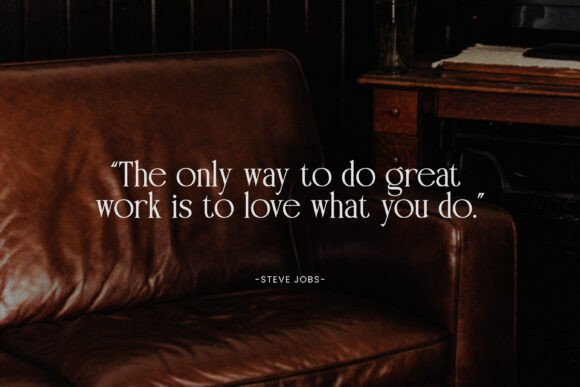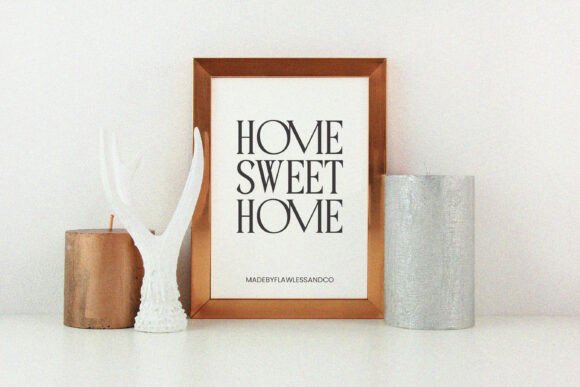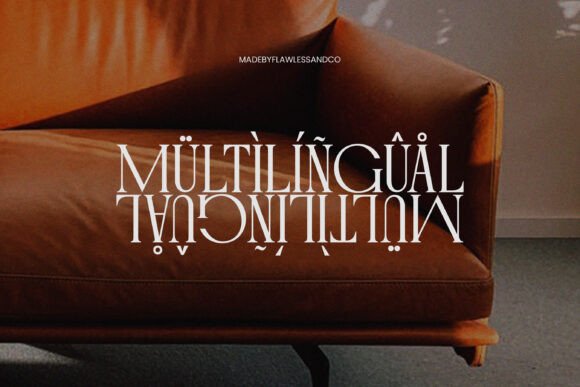
Introducing Grand Watcher: The Elegant Serif Font for Discerning Designers
I’ll never forget the time I was working on a wedding stationery project, and my client asked me to create a custom font to match their elegant brand. I spent hours scouring the internet for the perfect font, but nothing seemed quite right. That’s when I stumbled upon Grand Watcher, a refined serif font that combines timeless elegance with modern design. In this article, I’ll share my experience with Grand Watcher, its features, and how to make the most of it in your designs.
A Personal Review of Grand Watcher
- ✨ Sleek letterforms that exude sophistication
- ✅ Beautifully crafted ligatures that add a touch of elegance
- ⚡️ Perfect for adding a touch of refinement to branding materials, wedding stationery, product packaging, and more
- 🌈 Highly versatile and works well in a variety of design contexts
While Grand Watcher is an exceptional font, there are a few minor quirks to be aware of:
- 🤔 Some users may find the font’s serifs a bit too subtle for certain design applications
- ⚠️ The font’s ligatures may not work seamlessly with all design software or platforms
The Backstory of Grand Watcher
Grand Watcher was designed by a team of typographers who sought to create a font that would combine the elegance of traditional serif fonts with the sophistication of modern design. Inspired by classic watchmaking and the intricate details of luxury timepieces, Grand Watcher is a font that exudes refinement and poise.
Q: What is the x-height of Grand Watcher?
A: The x-height of Grand Watcher is approximately 50% of the cap height, making it a classic serif font with a balanced feel.
Q: Does Grand Watcher support OpenType features?
A: Yes, Grand Watcher supports OpenType features, including ligatures, stylistic alternates, and swashes.